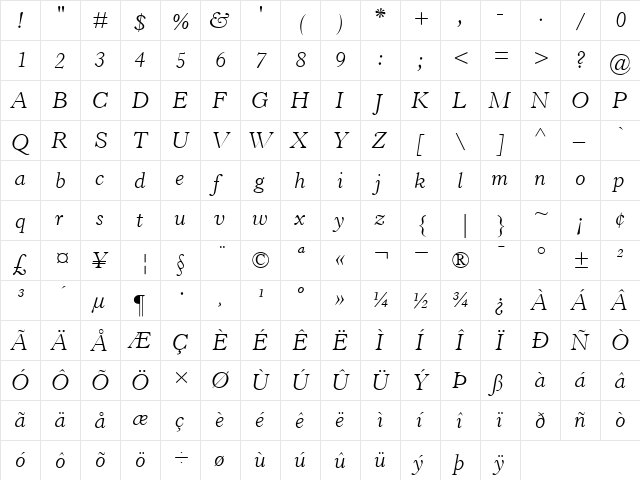
HorleyOldStyleMT-Light LightItalic Font Preview
Design Context for HorleyOldStyleMT-Light Typeface
HorleyOldStyleMT-Light brings classic typographic sensibility to the table — its serifs and measured letterforms reflect centuries of print heritage. The dynamic lean of this cut emphasises speed and emphasis in any layout. Its slender proportions lend an understated elegance to any composition.
Pro Tip: Set HorleyOldStyleMT-Light at slightly larger body copy sizes than you would a regular-weight serif to compensate for its delicate stroke contrast.